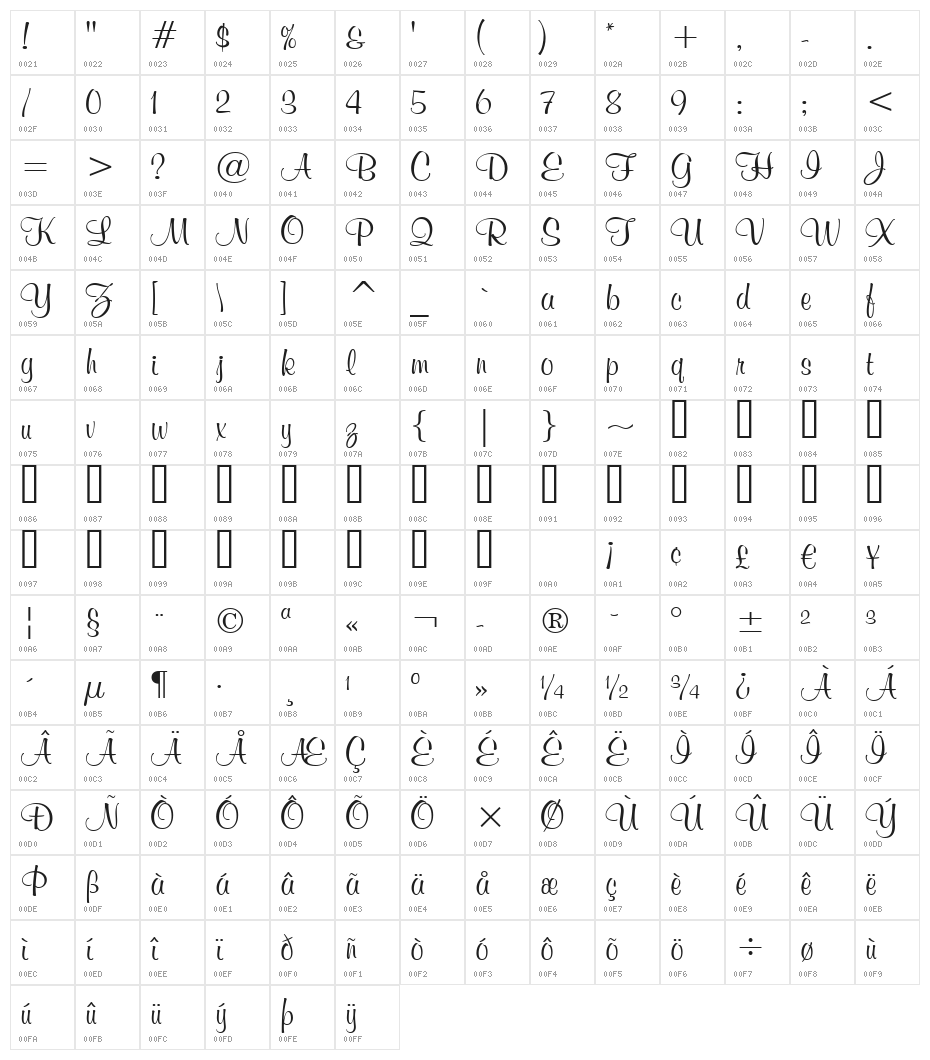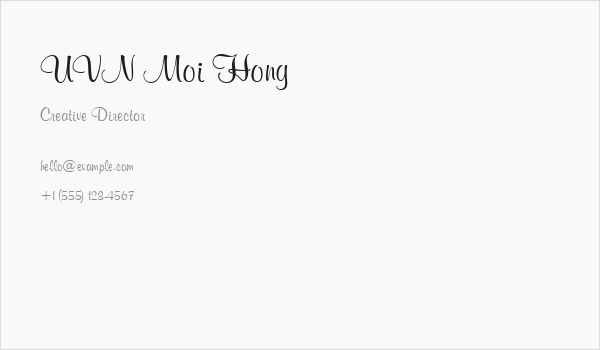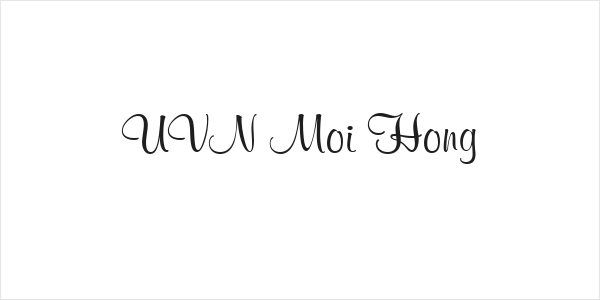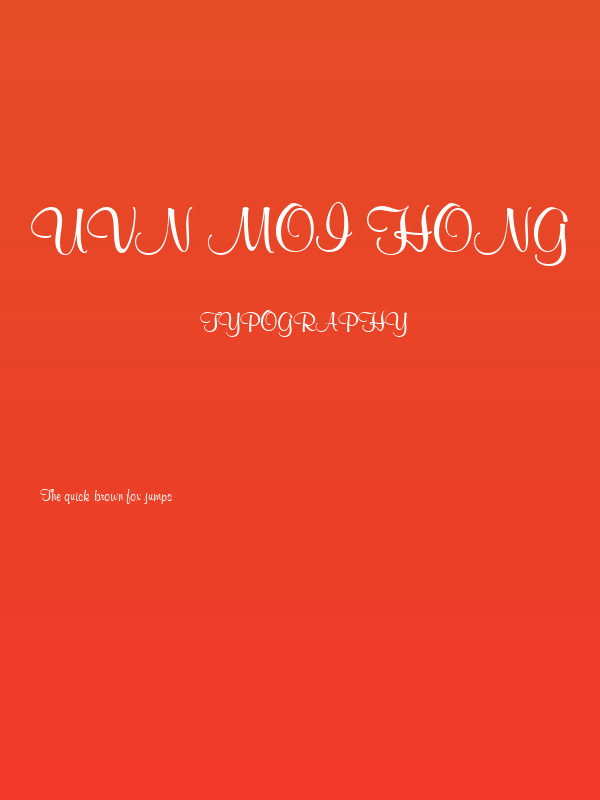
UVN Moi Hong Font
UVN Moi Hong Description
This font features a flowing, cursive style with elegant loops and swashes, giving it a sophisticated and artistic appearance. The uppercase letters are particularly ornate, with each character exhibiting unique flourishes that enhance its decorative quality. The lowercase letters maintain a consistent style, with smooth curves and a slightly playful touch. The numerals are bold and clear, ensuring readability while maintaining the overall aesthetic. Special characters are designed with the same attention to detail, making them seamlessly integrate with the rest of the typeface. This font's design is perfect for adding a touch of elegance and creativity to any project.